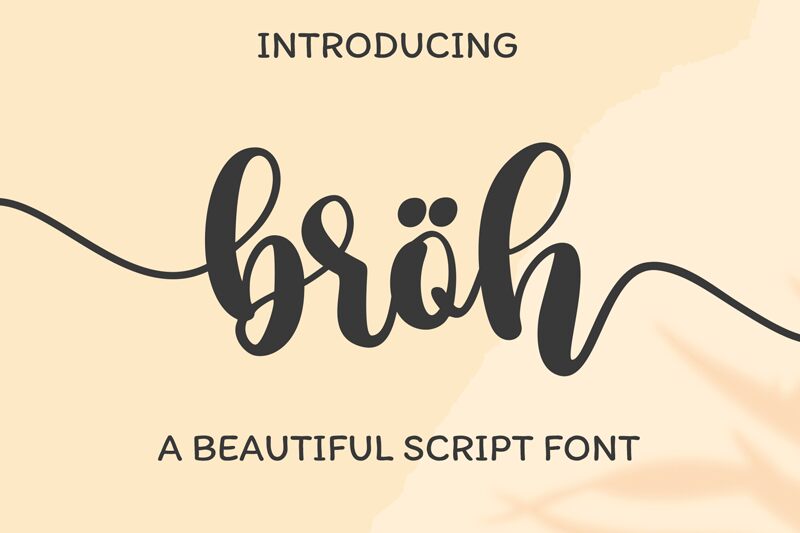
Broh is the ultimate calligraphy font for bold designs that demand attention. Designed by Bearytype, this striking typeface features elegant curves and bold lines that make it perfect for everything from logos to headlines. The thick strokes of the semi-bold font are sure to stand out on any project, whether you're designing a poster or a website. With its unique style and eye-catching design, Broh is perfect for any project that needs a touch of sophistication and elegance. From wedding invitations to product packaging, this calligraphy font is sure to leave a lasting impression on anyone who sees it.
Broh